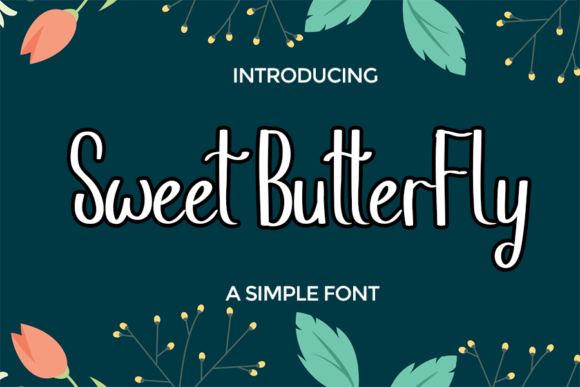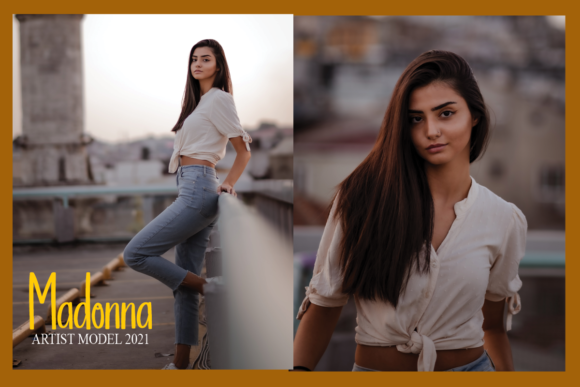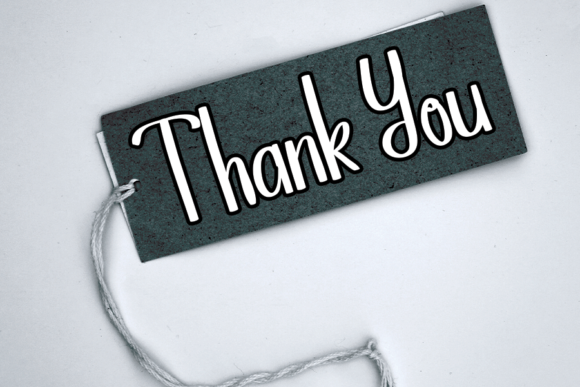
Sweet Butterfly Font
About Sweet Butterfly Font
Sweet Butterfly is a delicate, elegant and flowing handwritten font. It has beautiful and well balanced characters and as a result, it matches a wide pool of designs. Add it to your most creative ideas and notice how it makes them come alive!